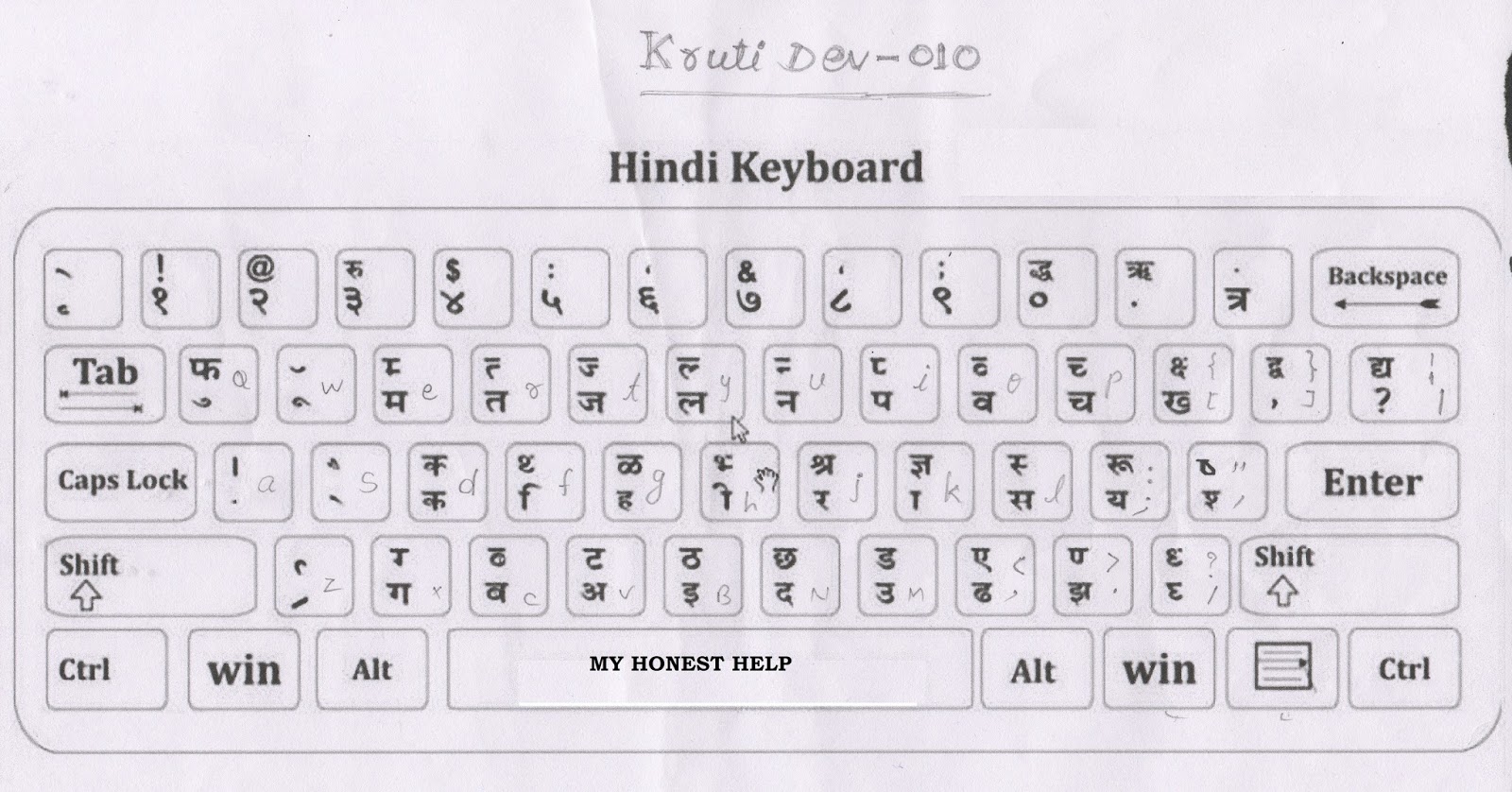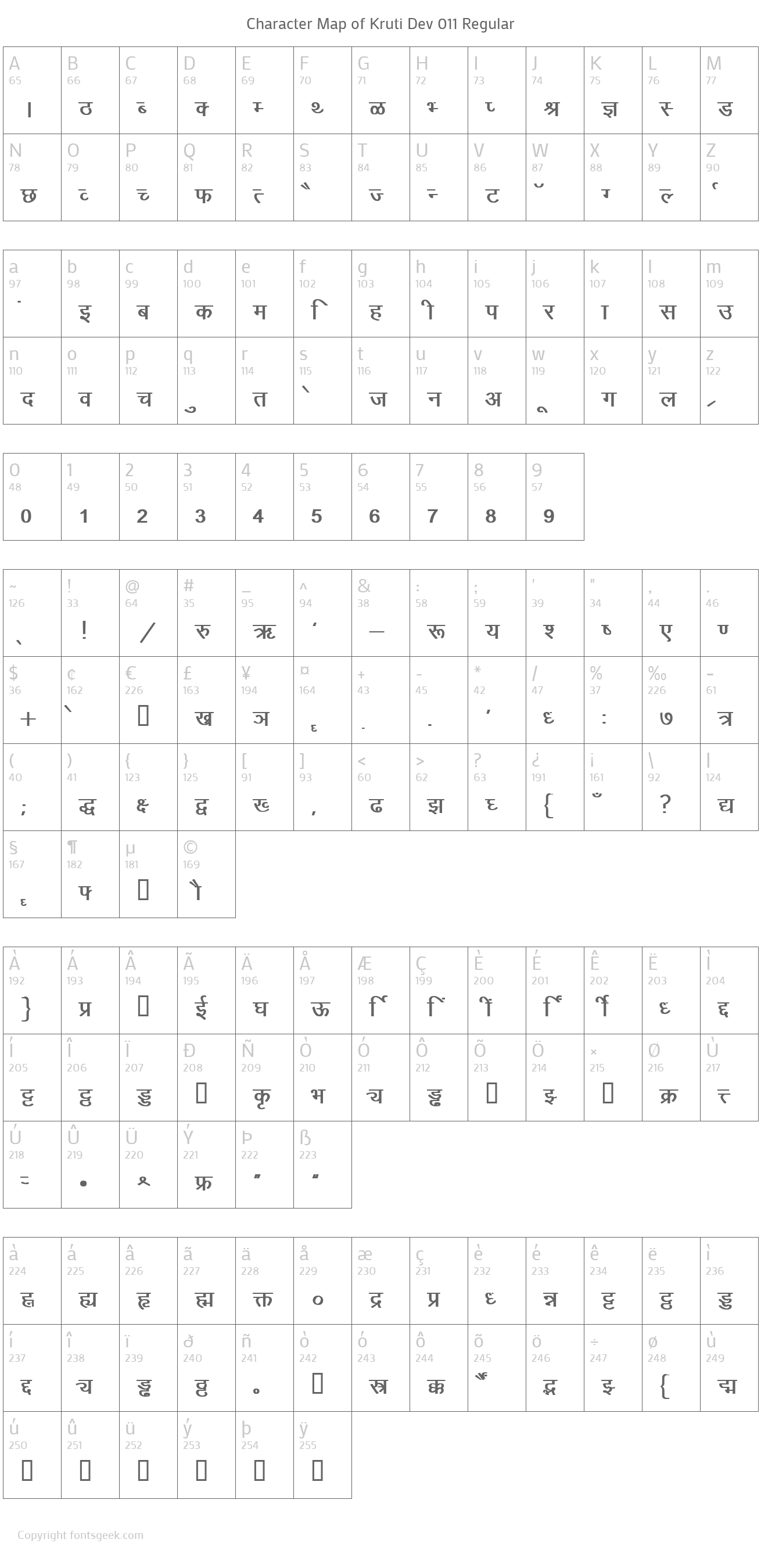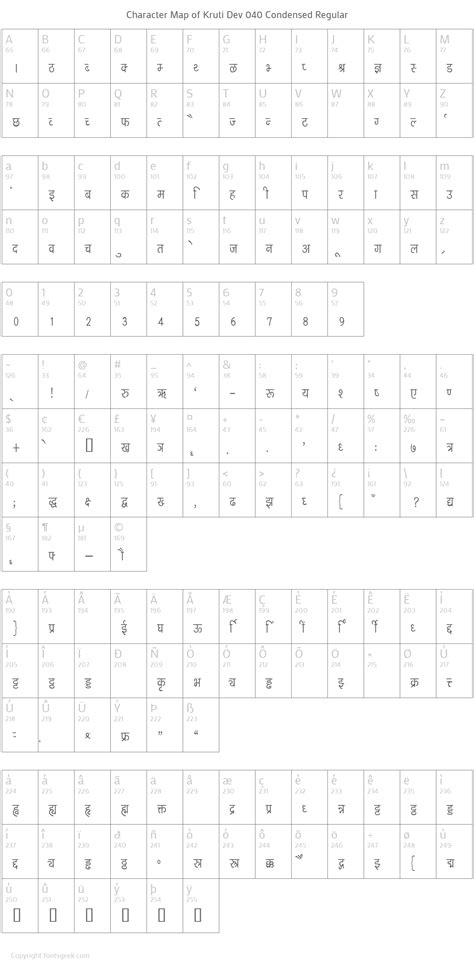
Kruti Dev Font Download - Kruti dev is a devanagari typeface based on. Web here on hindityping.info we provide you a large collection of all kruti dev regular, designer (fancy) stylish, beautiful,. Web download kruti dev font in.ttf or.otf format and install it on your keyboard.